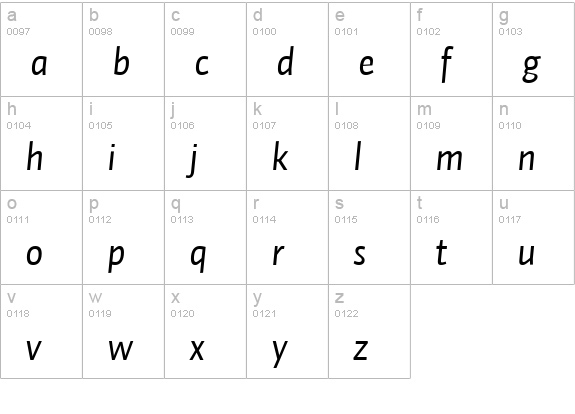
Auto 1 Italic Font Details
Auto 1 Italic is a distinctive, italic variant in the Auto typeface family \xE2\x80\x94 well suited to design and typography projects.
Auto 1 Italic font is a sleek and modern typeface that exudes elegance and sophistication. Its italicized design adds a touch of flair to any project, making it perfect for use in branding, advertising, and editorial designs. The clean lines and refined curves of Auto 1 Italic create a polished and professional look that will elevate any design. This versatile font is freely available to download at FontsMarket.com, making it easily accessible for designers and creatives looking to add a touch of sophistication to their work. Whether you're working on a website, a poster, a logo, or any other design project, Auto 1 Italic is sure to make a statement and leave a lasting impression. Elevate your designs with the stylish and contemporary Auto 1 Italic font today.